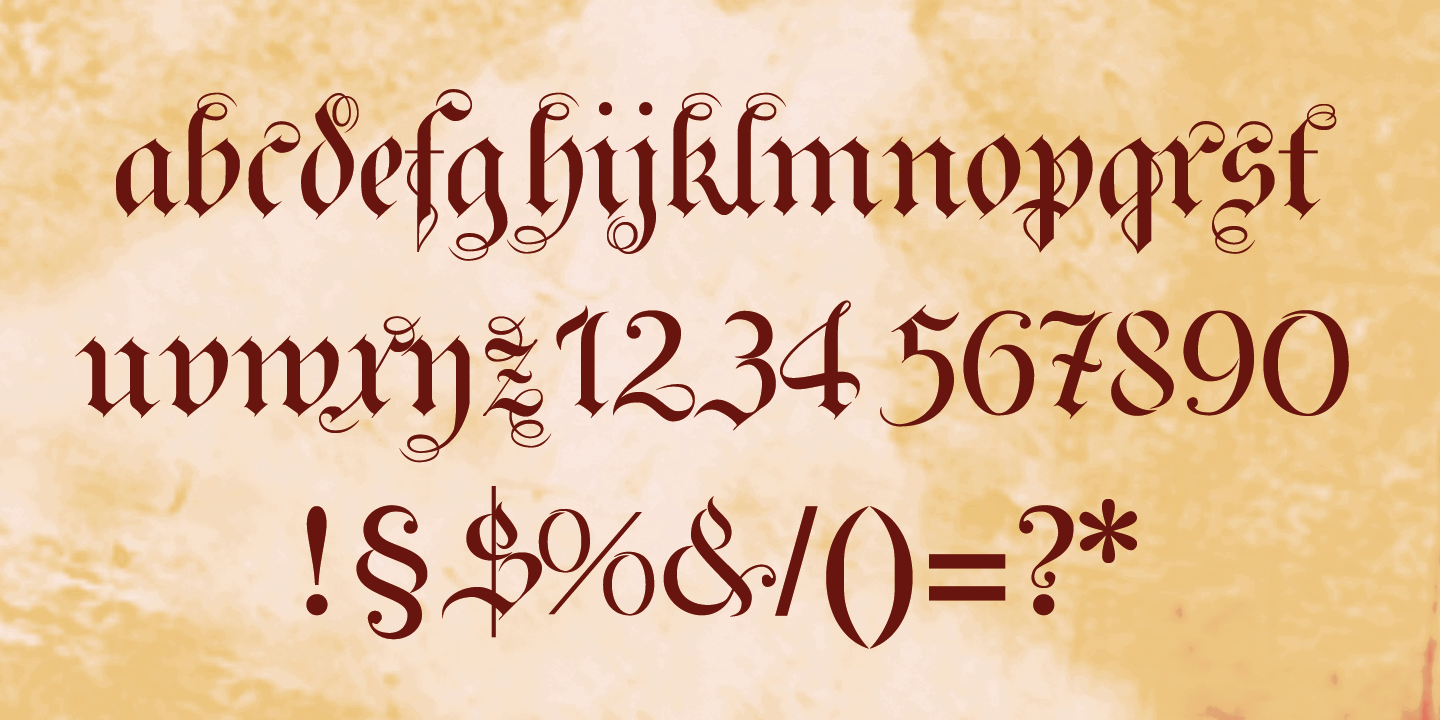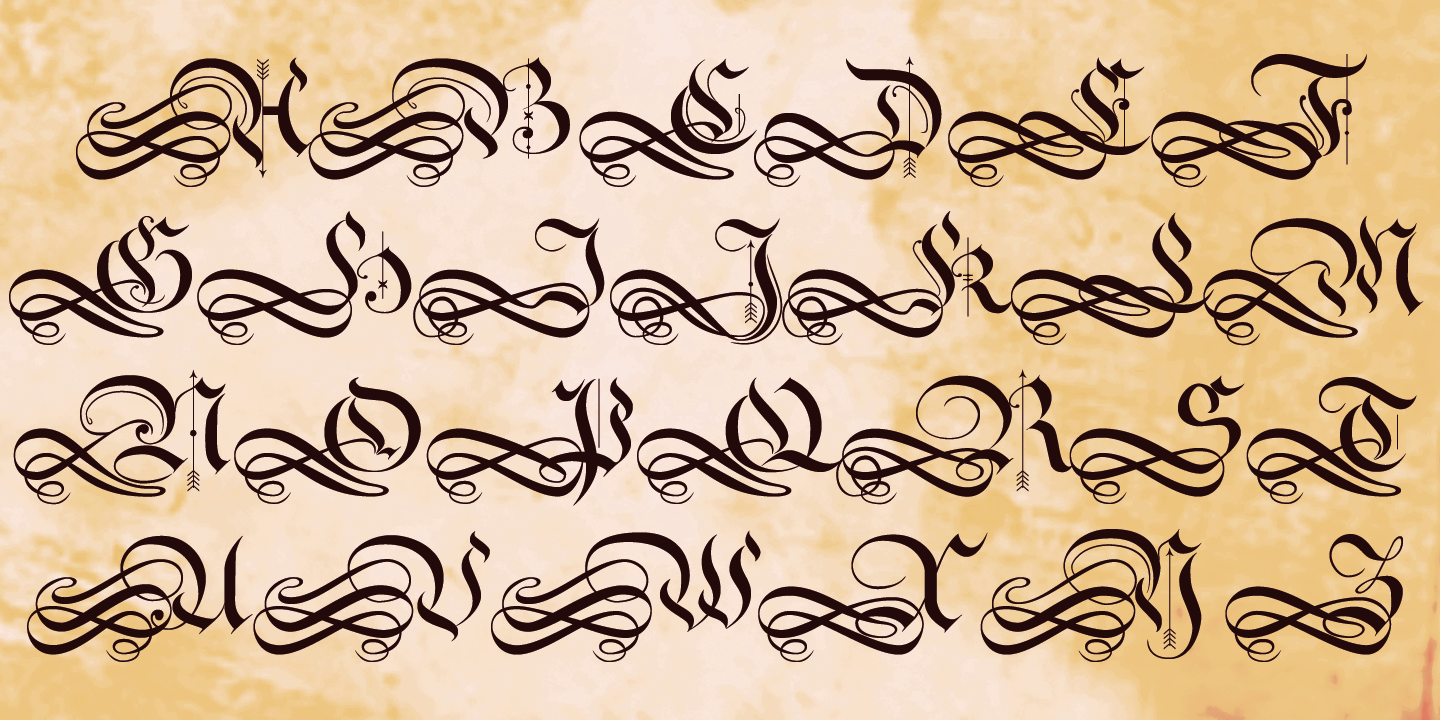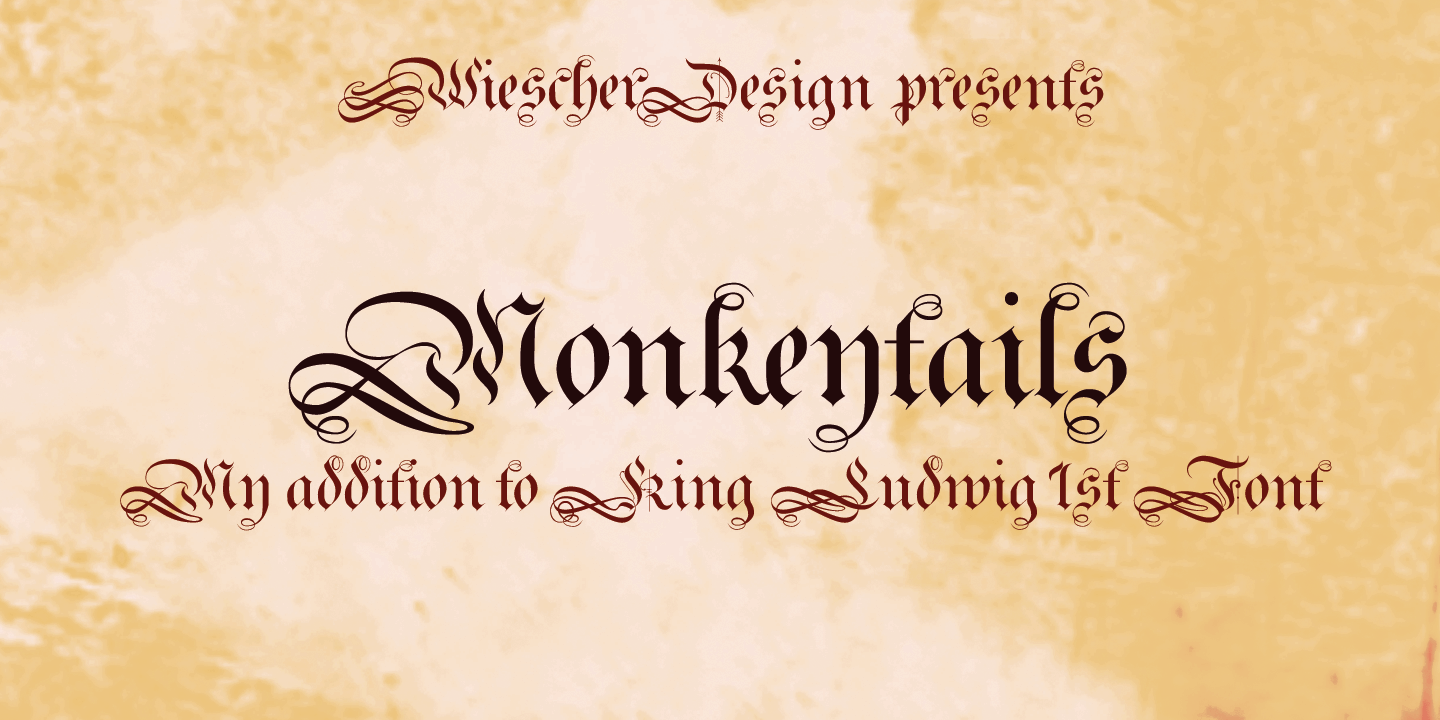
Monkeytails
Font Family by Wiescher Design
I don't know what other typedesigners call those long swirling embellishment, but I call them ?Monkeytails?. So when I decided on this version of my good old Royal Bavarian, I decided to call the new font ?Monkeytails?. I just fell in love with this name.
Monkeytails and Royal Bavarian should be used together, in order not to have too many embellishments. That's why I offer the two together for a good price.